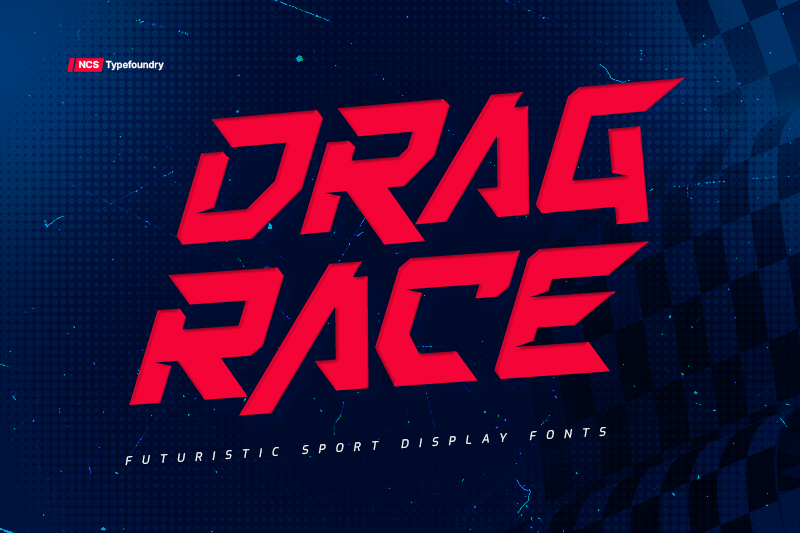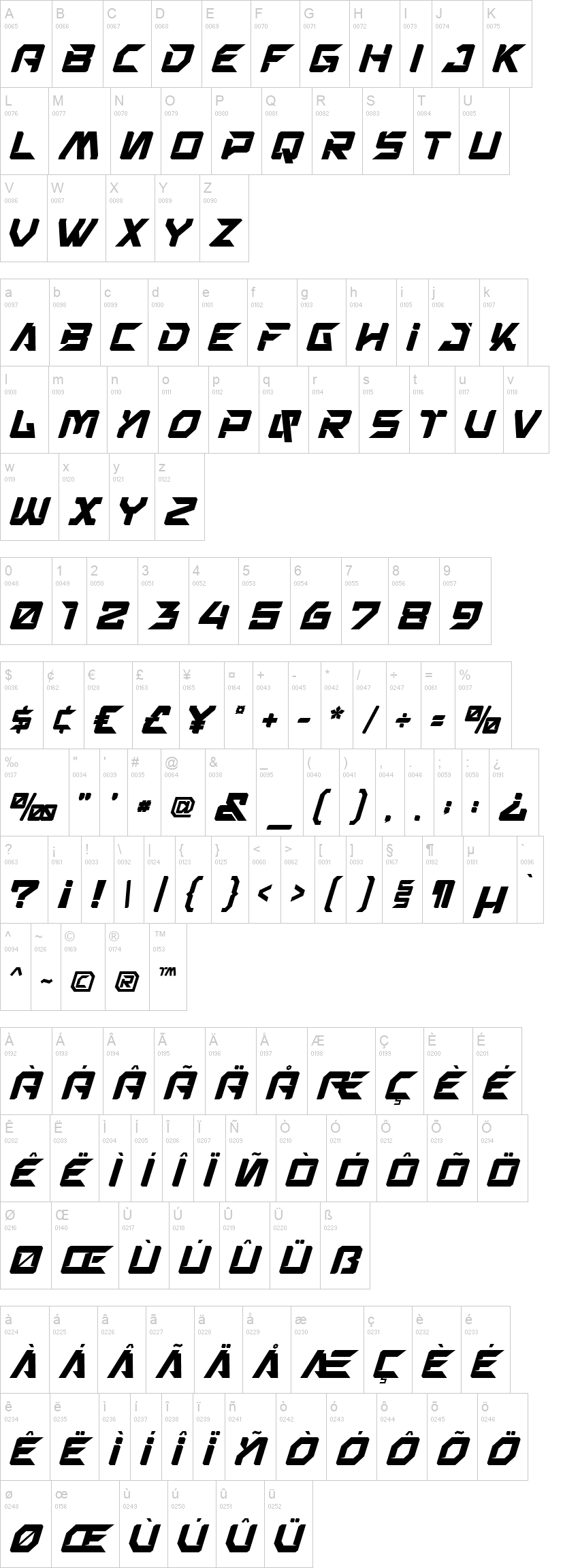
Note of the authorStrong & unique characteristic combined with modern style, Suitable for headline, film/games cover, logotype, label design and automotive purposes.